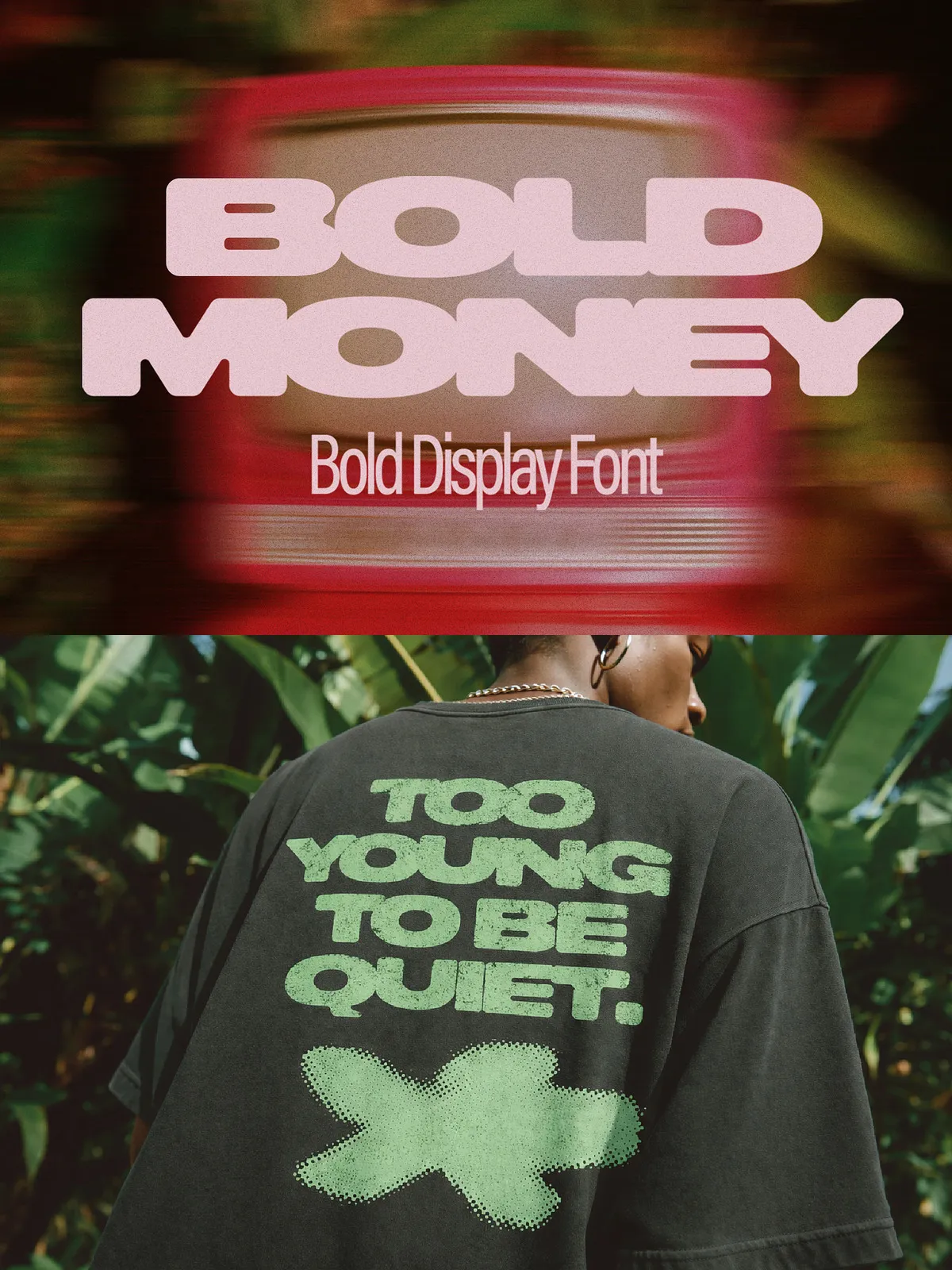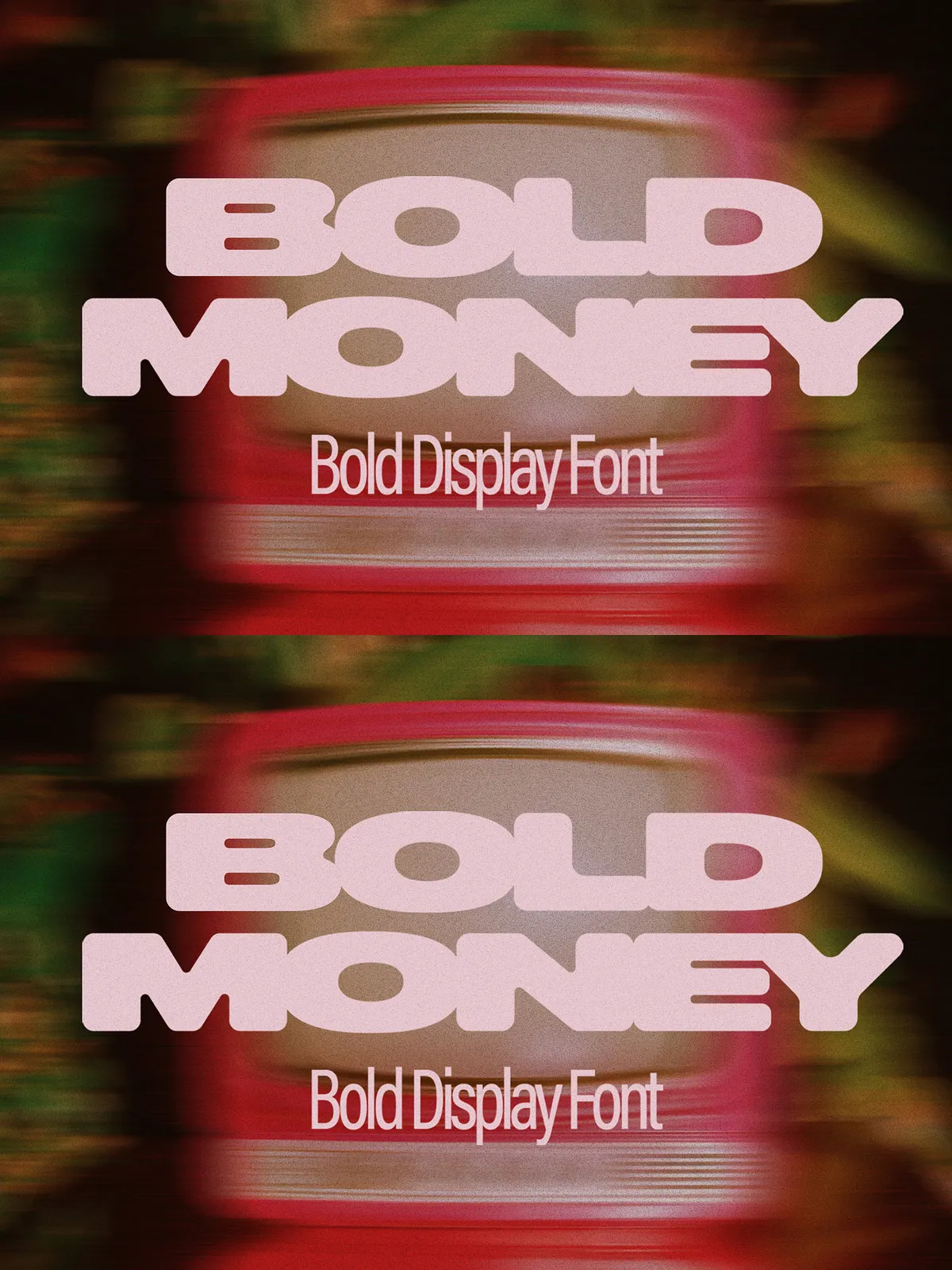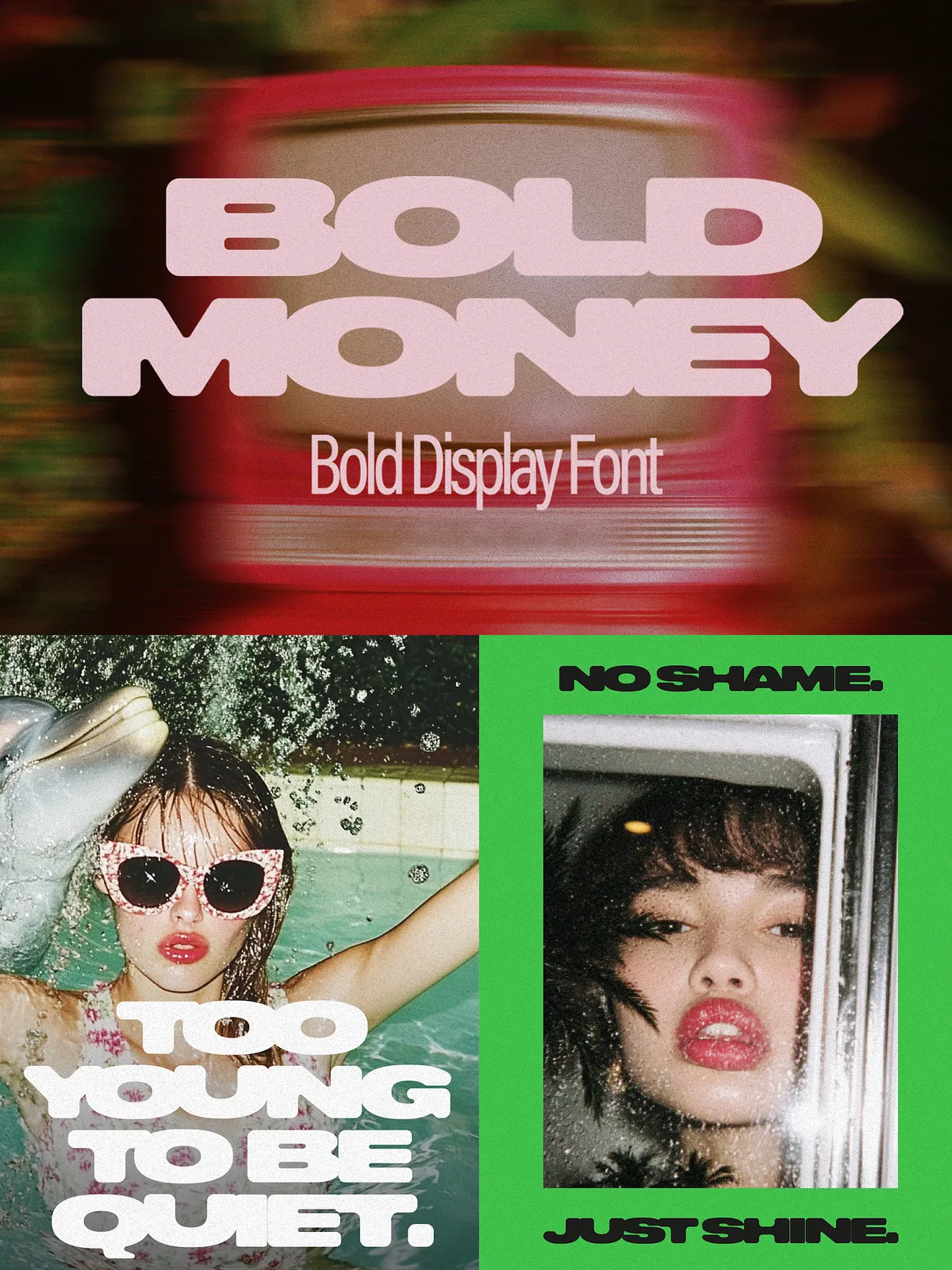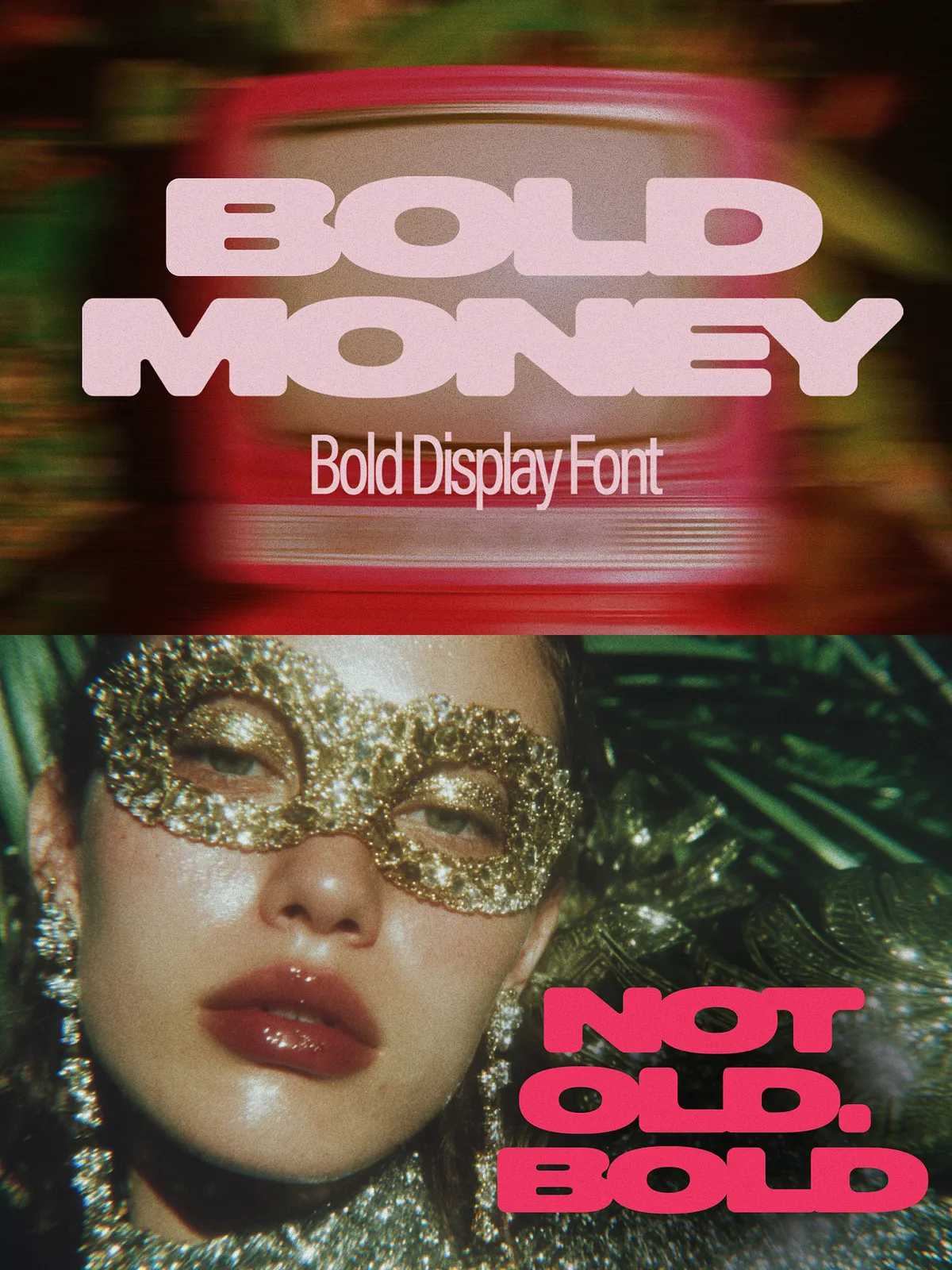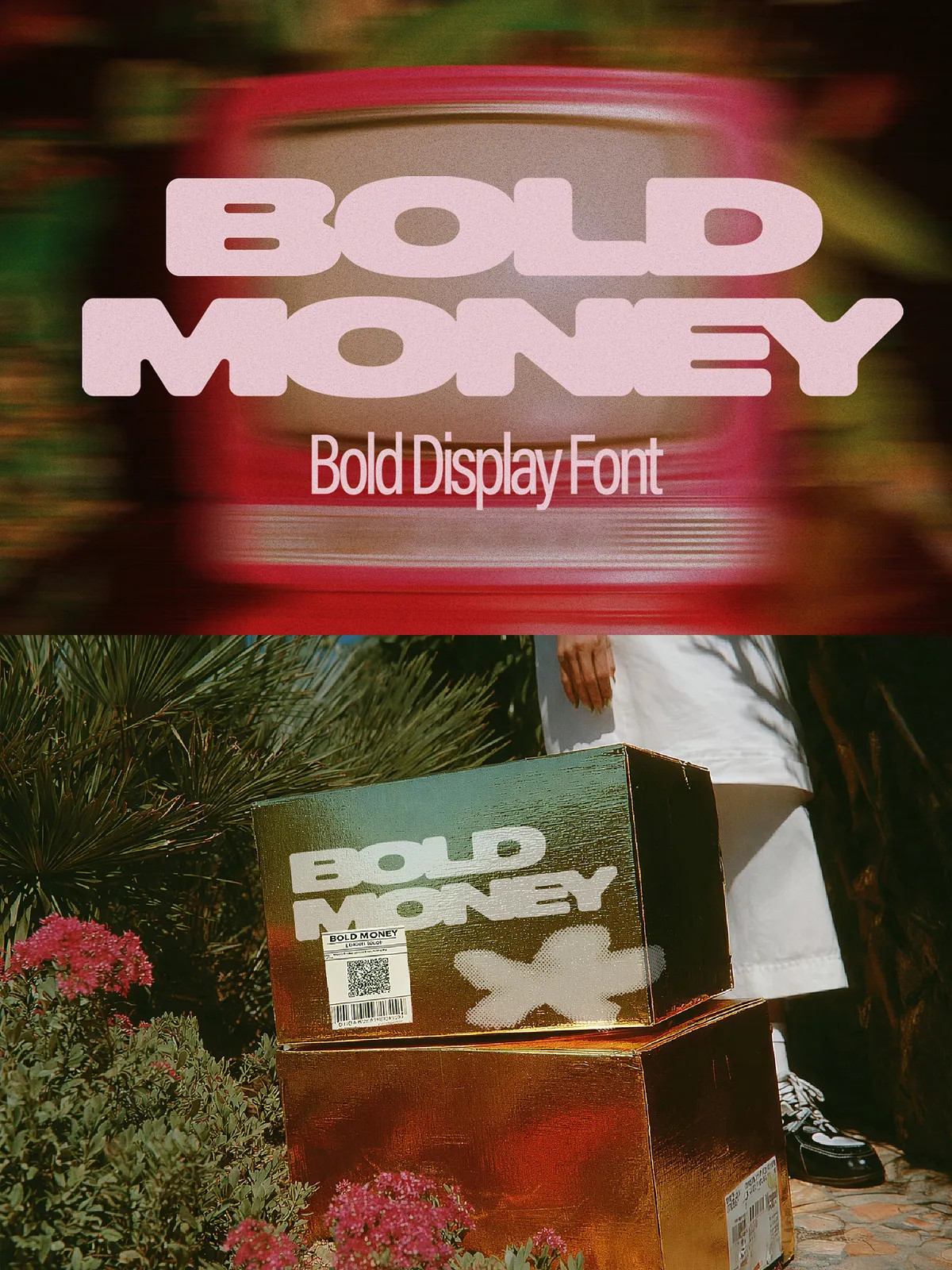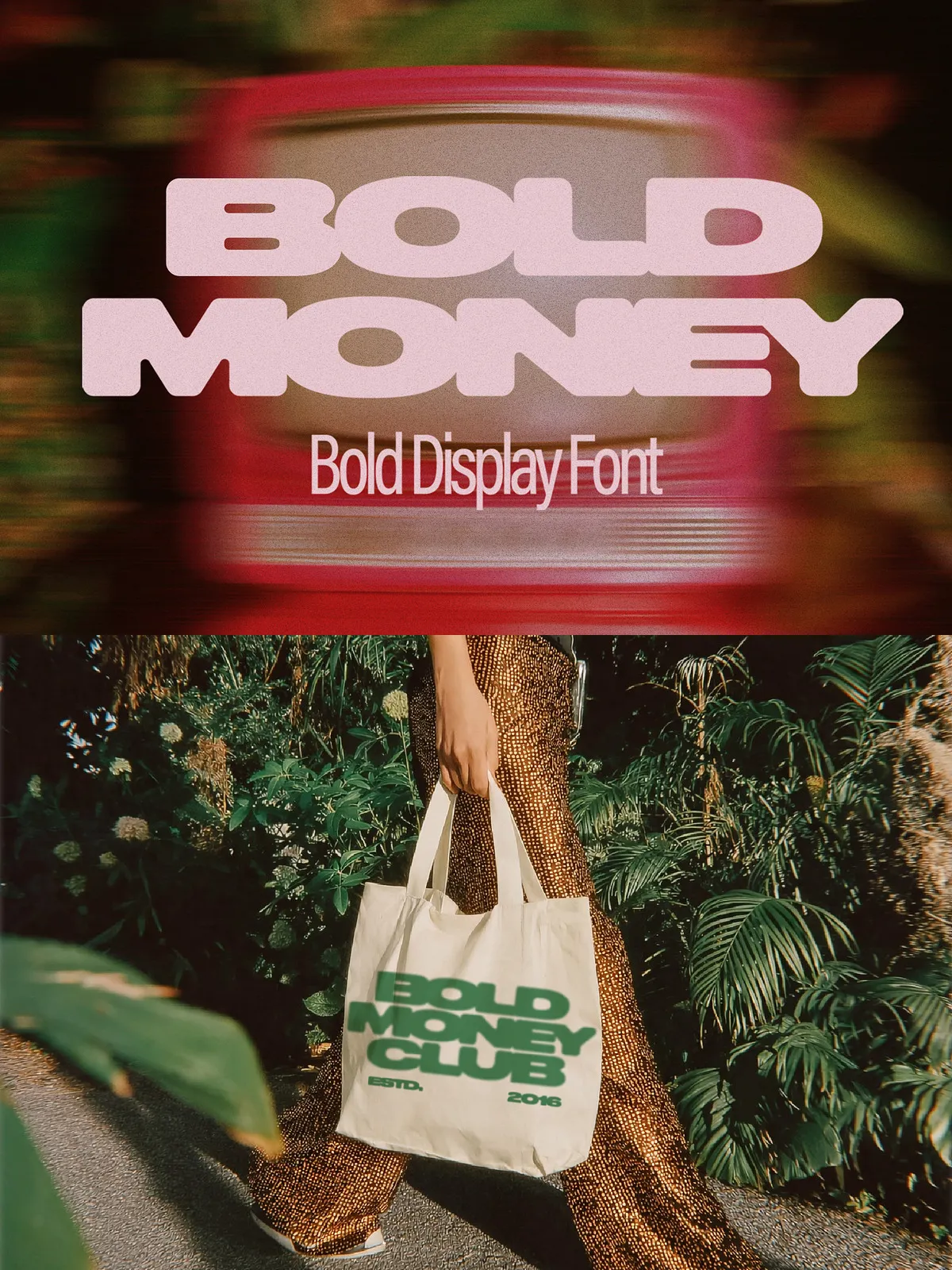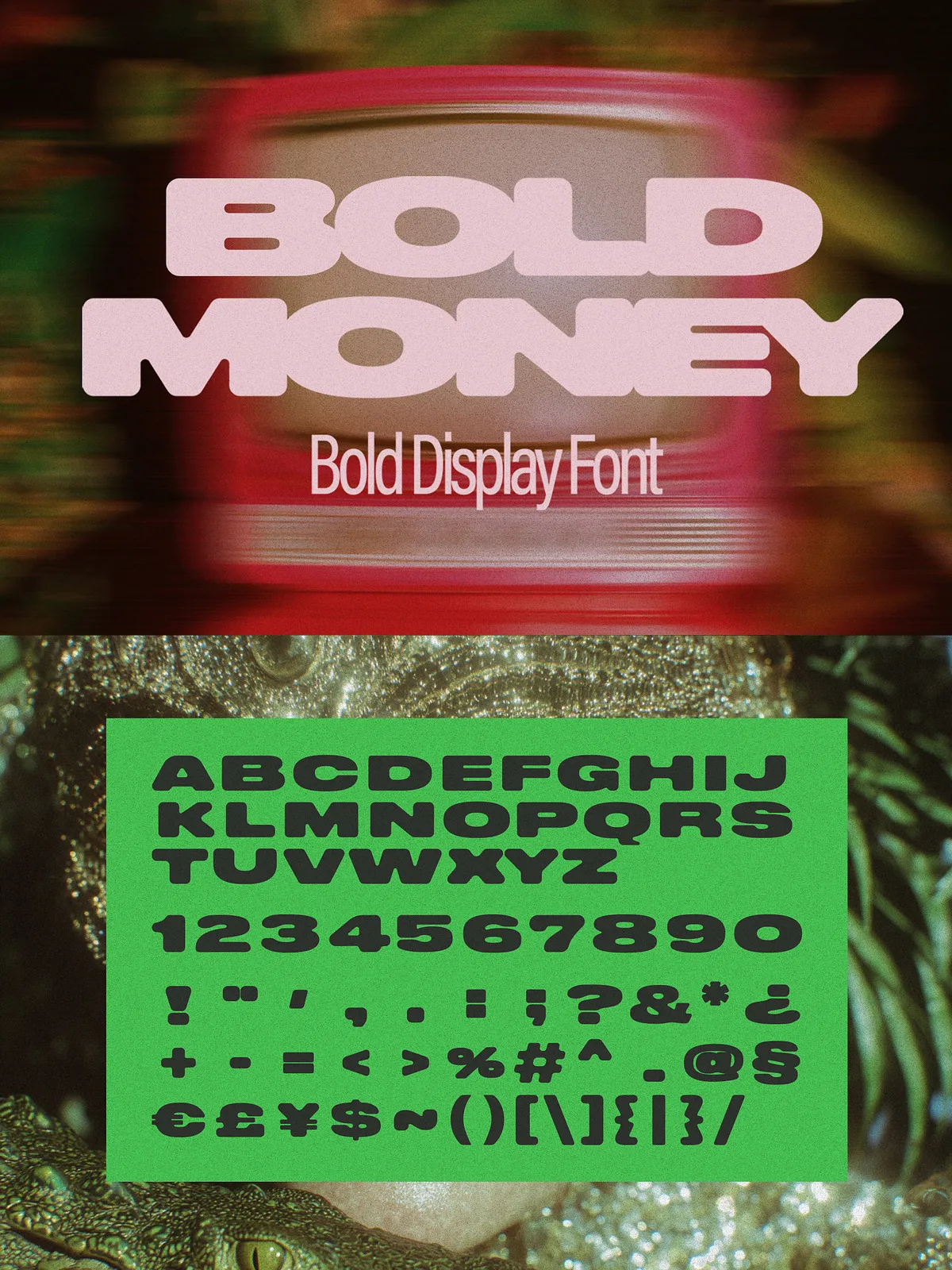
Bold Money — Bold Display Font
Bold Money is a bold, chunky display font with a unique “melted” and connected look.
With its all-caps structure and sticky letterforms, Bold Money is perfect for eye-catching headlines, logos, posters, social media graphics, branding, and modern creative projects.
This font was designed to stand out — loud, confident, and impossible to ignore.
✨ Features
All Caps Font
Bold & Heavy Weight
Unique Connected Letter Style
Modern & Experimental Look
🎯 Perfect For
Logos & Branding
Posters & Flyers
Social Media Graphics
Gaming & Tech Designs
Streetwear & Merch
YouTube Thumbnails
Album Covers
Headlines & Titles
Make your designs stick in memory with Digital Slime!
This font includes uppercase letters only. There are no lowercase characters.
The connected, “melting” letter style is intentional and part of the font’s design concept. Depending on your project, you may adjust kerning and tracking to achieve your desired spacing.